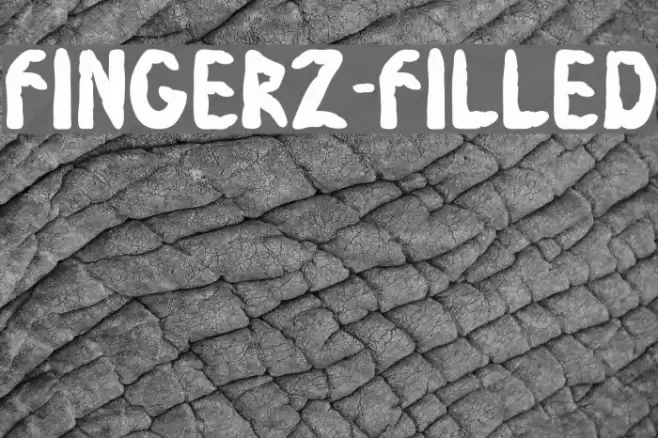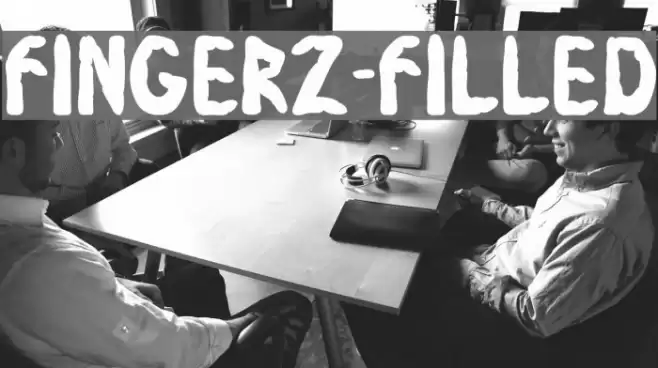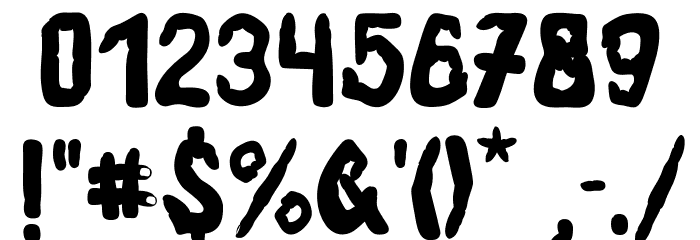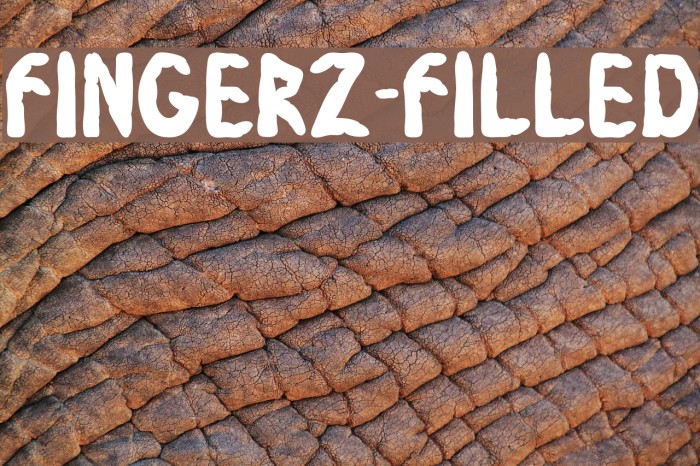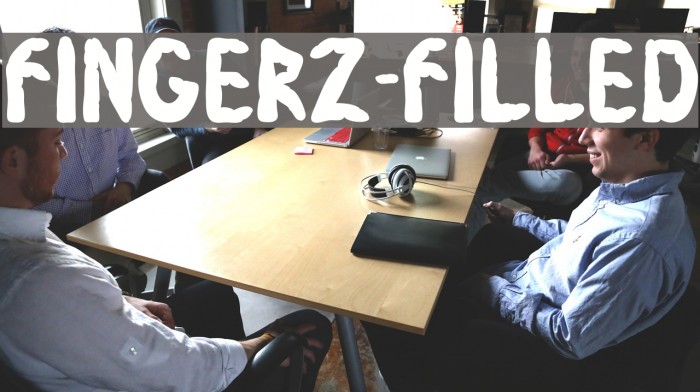
Fingerz-Filled Font
Fingerz-Filled Description
This font features a bold, hand-drawn style with thick, uneven strokes that give it a playful and energetic appearance. The characters are filled with a solid black color, creating a strong visual impact. The irregular shapes and slightly rough edges add a casual, artistic feel, making it stand out in any design. The uppercase and lowercase letters maintain a consistent style, with rounded forms and a slightly condensed width. Numbers and special characters follow the same aesthetic, ensuring a cohesive look across all text elements.
A bold, hand-drawn font with thick, uneven strokes and a playful, artistic style from Cartoon fonts.